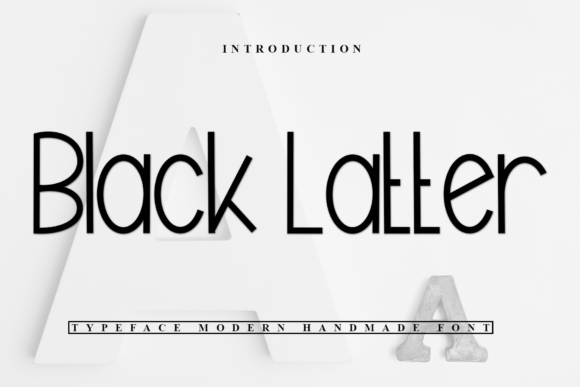
The Power of Black Latter Font: Elevate Your Designs with Timeless Elegance
So, what makes Black Latter Font so special? Here are the things I love:
- ✨ Unique and beautiful touch: Every letter has a distinct character that adds a touch of elegance to any design.
- 💫 Eye-catching logos and branding: Black Latter Font is perfect for creating stunning logos, branding materials, and quotes that grab attention.
While Black Latter Font is an amazing choice, there are a few things to keep in mind:
- 🤔 Limited use cases: Due to its bold and elegant nature, Black Latter Font might not be the best choice for body text or smaller designs.
The Story Behind Black Latter Font
Black Latter Font was designed with elegance and sophistication in mind. The creator aimed to craft a font that would add a touch of luxury to any design, while still being highly legible and versatile. The result is a timeless font that’s perfect for designers, crafters, and creative hobbyists looking to elevate their designs.
| What is Black Latter Font best used for? | Black Latter Font is perfect for creating eye-catching logos, branding materials, and quotes. |
| Is Black Latter Font suitable for body text? | Due to its bold and elegant nature, Black Latter Font might not be the best choice for body text or smaller designs. |